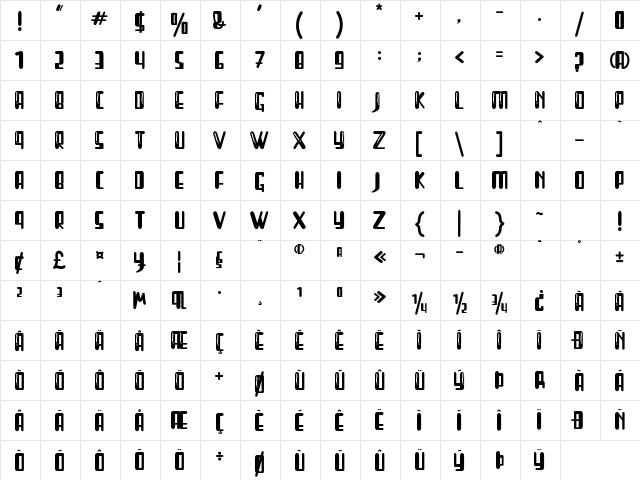
Sweet Gourd Regular
Design Context for Sweet Gourd Typeface
Sweet Gourd is a composed and adaptable typeface that performs quietly and consistently across a wide range of design contexts.